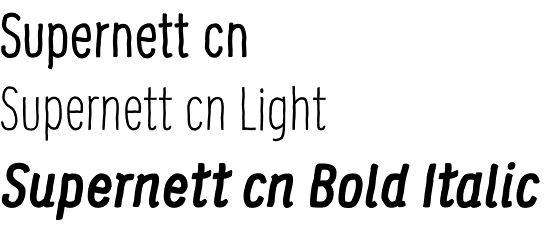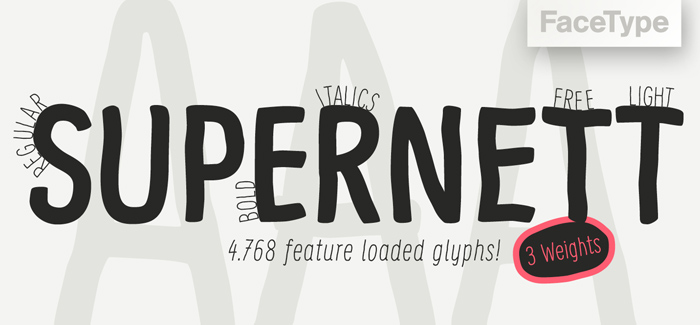
Supernett font
Supernett font started as a small idea and ended up in a hand-drawn Sans-Serif in 6 styles. Light, Regular and Bold plus specifically drawn Italics. More than 4700 glyphs per style to pursue one goal: let the font look real hand-made, let equal glyphs look different to each other. Three OpenType features are specially tailored to enhance this impression, with a maximum effect when applied to big type:
Alternating Letters
Letters and numerics alternate randomly between three different variants: OT Contextual Alternates
Rotating letters
All glyphs rotate randomly and slightly around their own axis: OT Swashes
Varying Baseline Shift
Each single glyph moves individually up or down: OT Titling Alternates
Furthermore Georg Herold-Wildfellner wanted to create a well legible handwritten font. Neither fancy nor maverick, rather conventional to keep the font versatile and its character simple. The extensive character set supports Central and Eastern European as well as Western European languages.